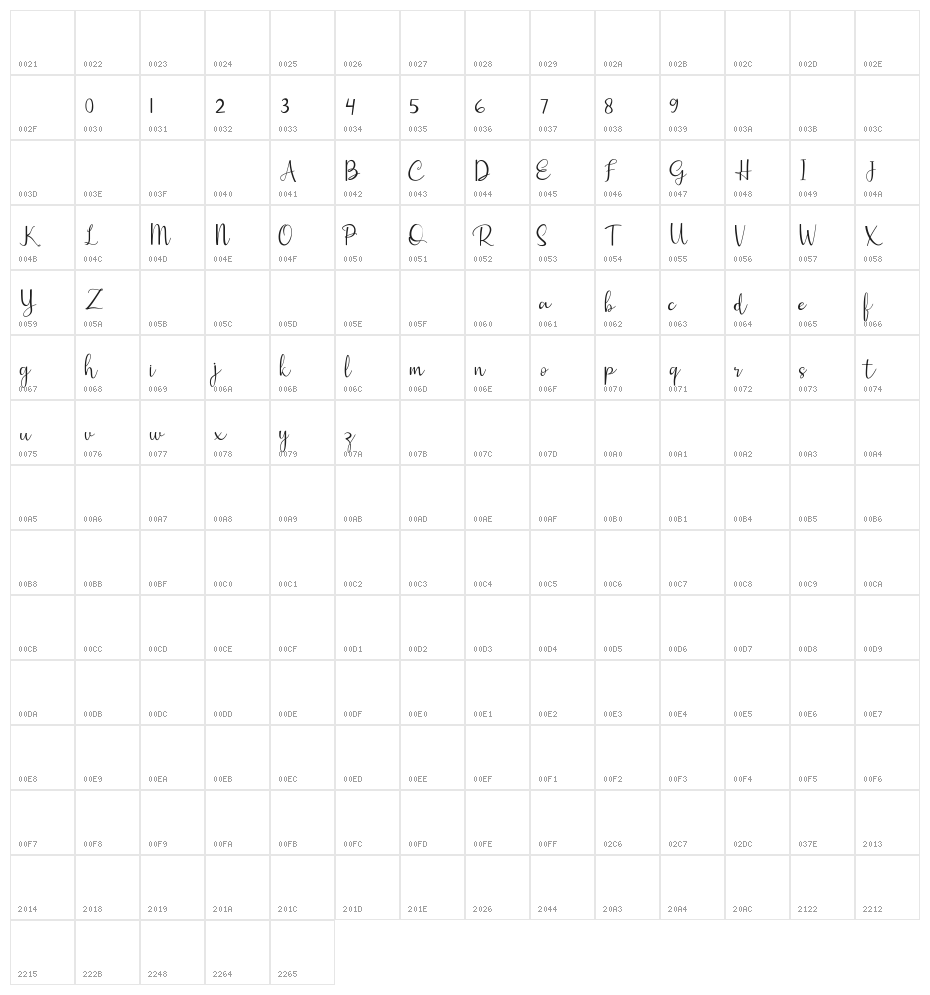
Fabullous Font
Fabullous Description
This font features an elegant and flowing script style, characterized by its smooth, cursive letterforms that exude a sense of sophistication and grace. The uppercase letters are particularly ornate, with intricate loops and swirls that add a decorative touch. The lowercase letters maintain a consistent flow, enhancing readability while retaining the font's artistic flair. The numerals are clear and complement the overall style, making them suitable for various design applications. The special characters are thoughtfully designed to match the aesthetic, ensuring a cohesive look across all text elements.
| Overall Style | Elegant |
| Use Case | Logos, Invitations, Decorative text |
| Proposed Projects | Ideal for wedding invitations, greeting cards, branding, and elegant logo designs. |